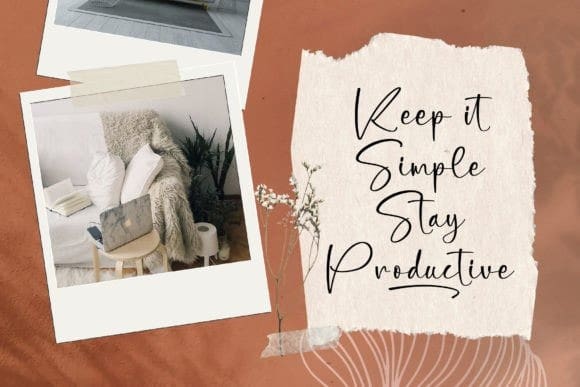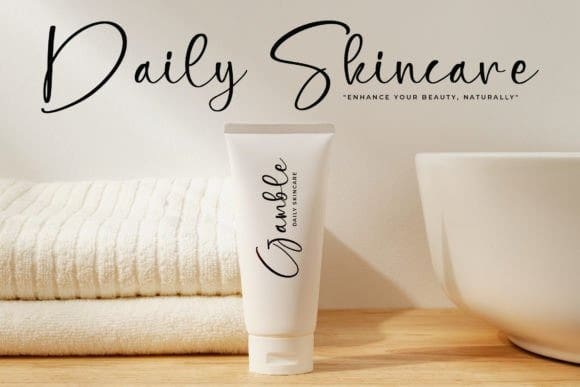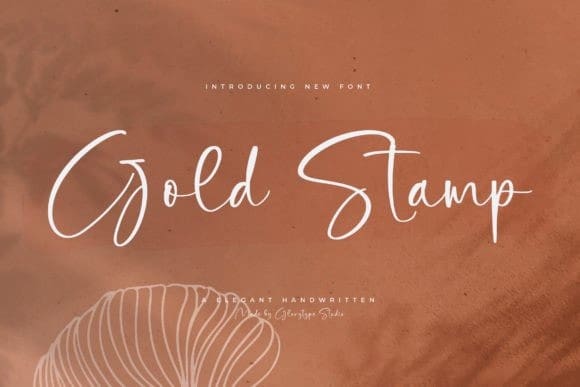
Gold Stamp Font
Gold Stamp Font is a stylish and elegant signature script font. Dainty and joyful, this font will be ideal for writing wedding invitations, cards or any other design that may need a romantic, personalized touch!